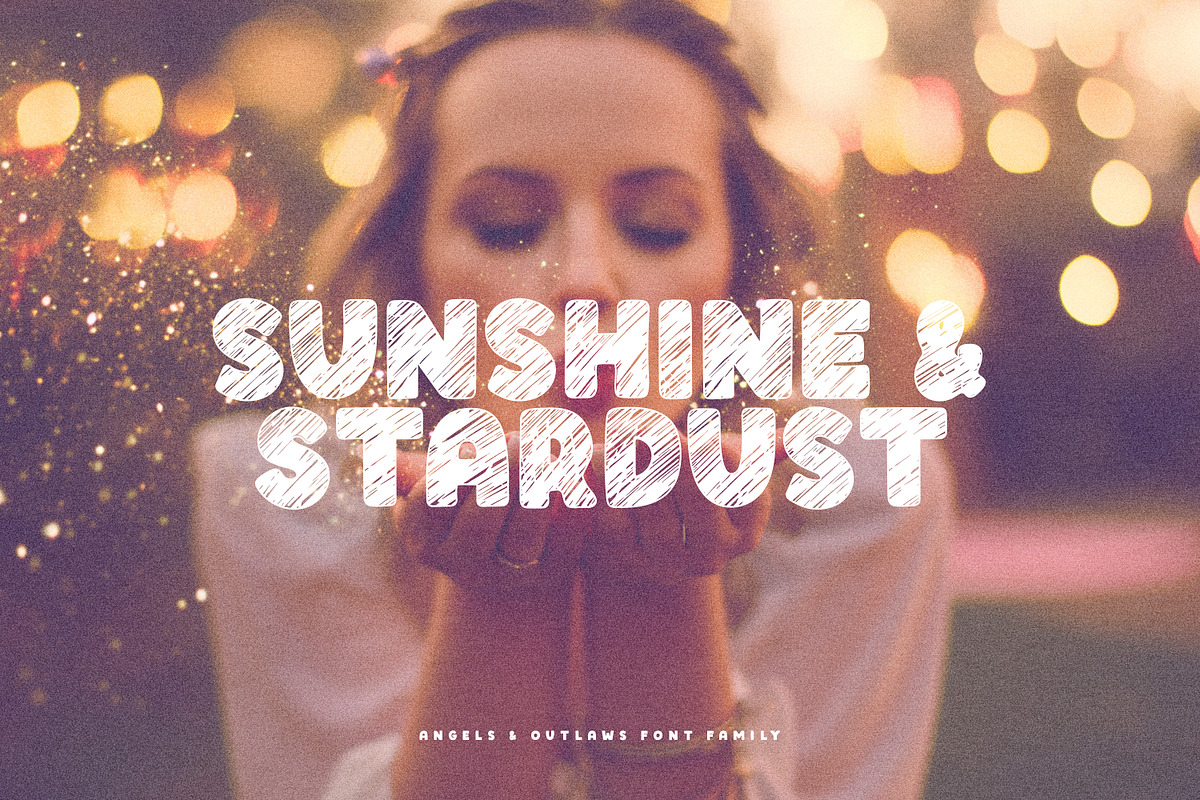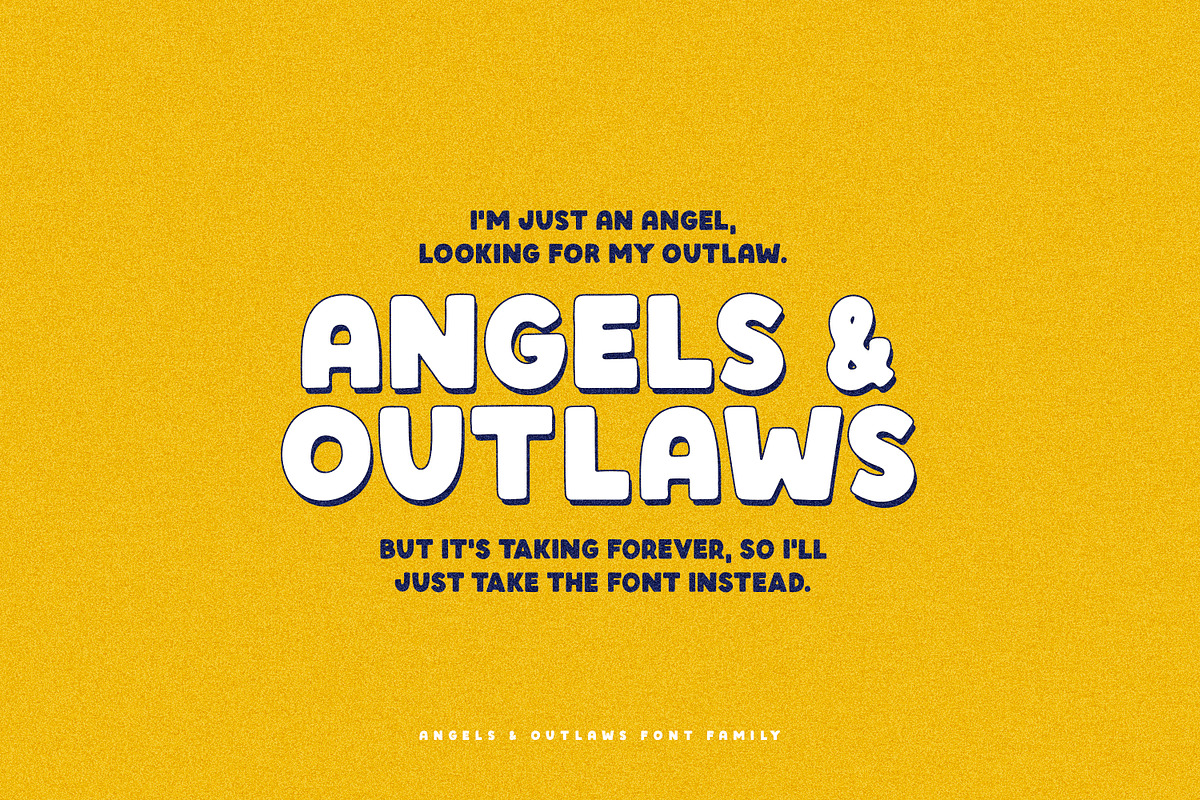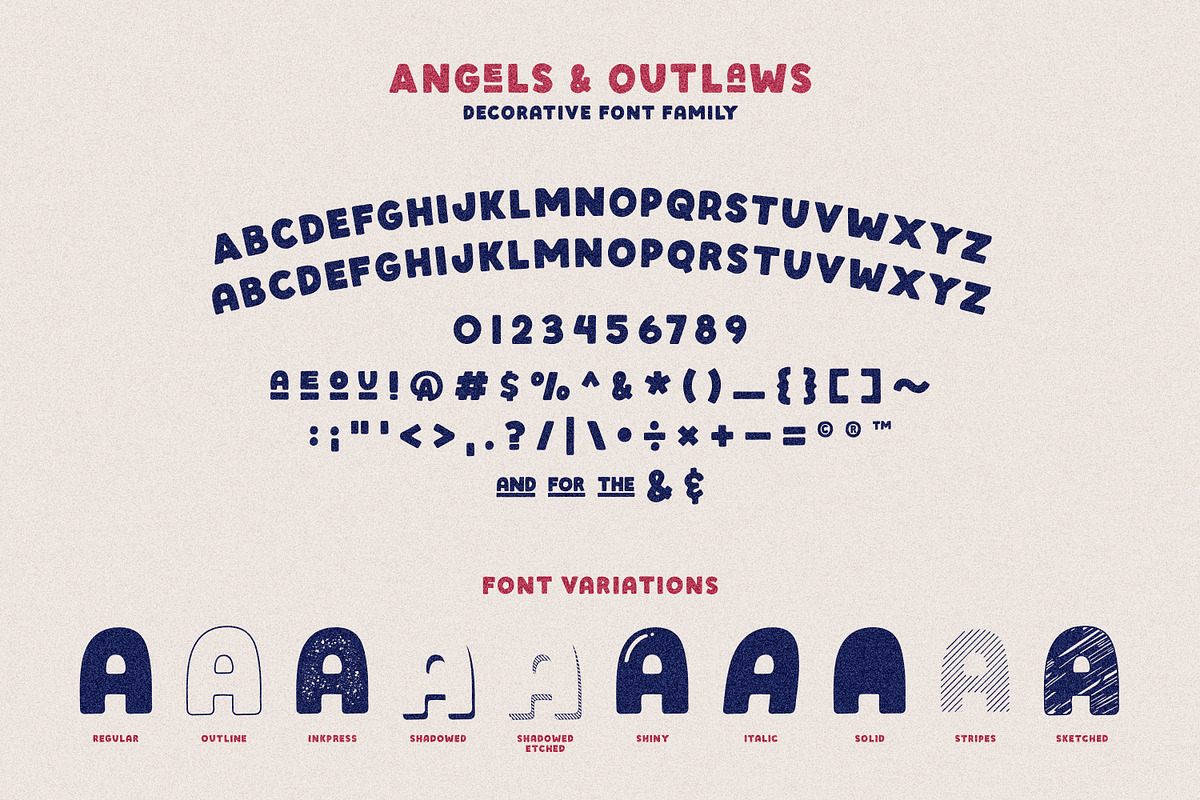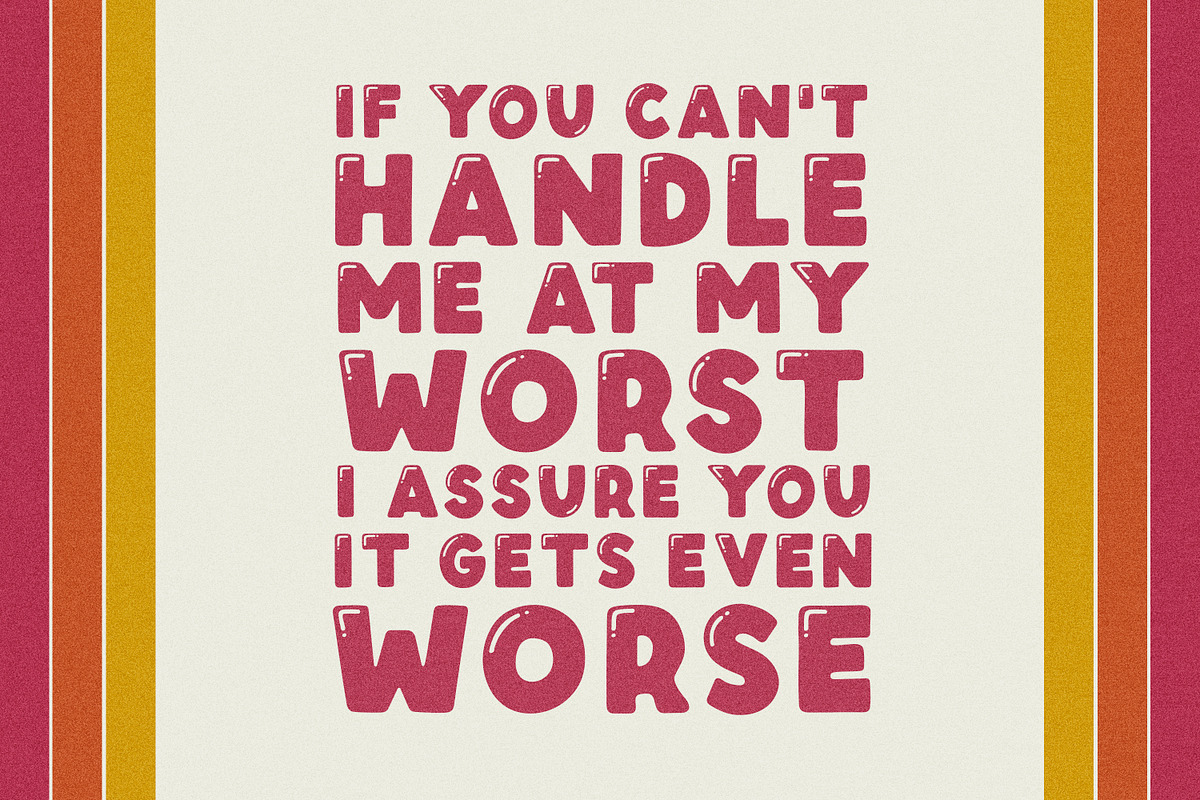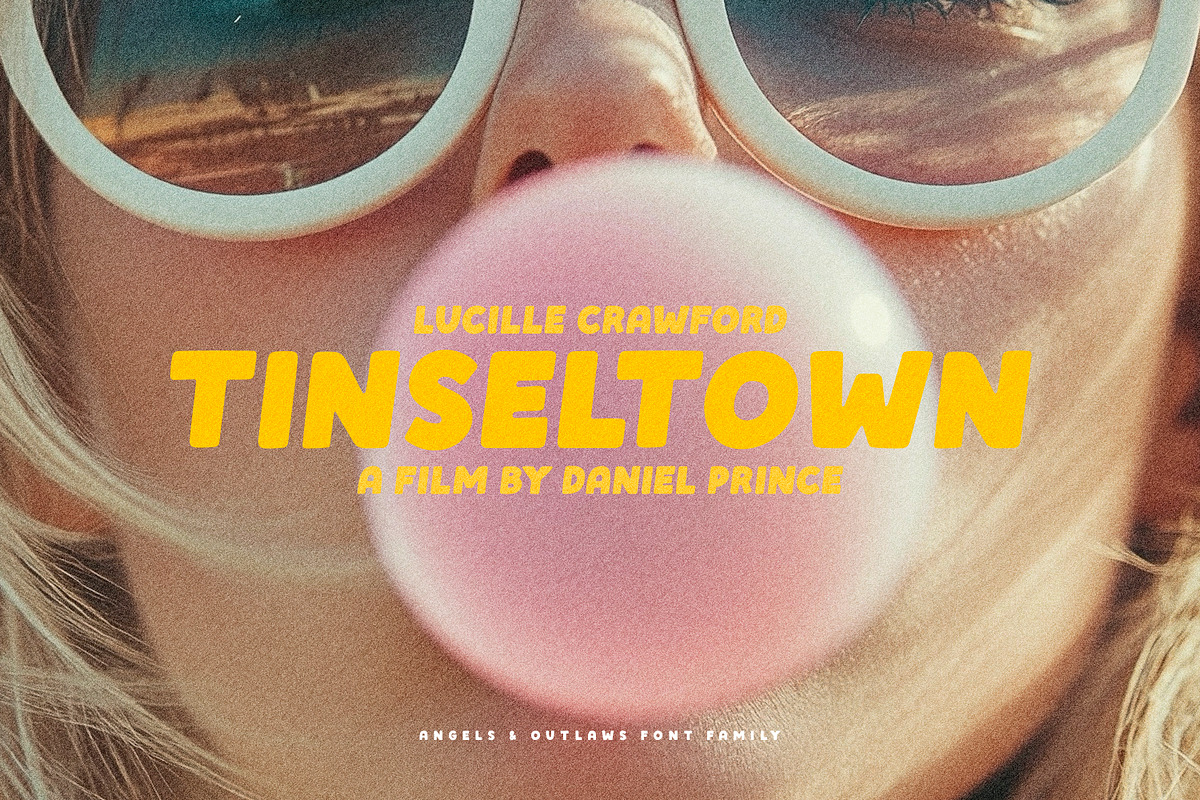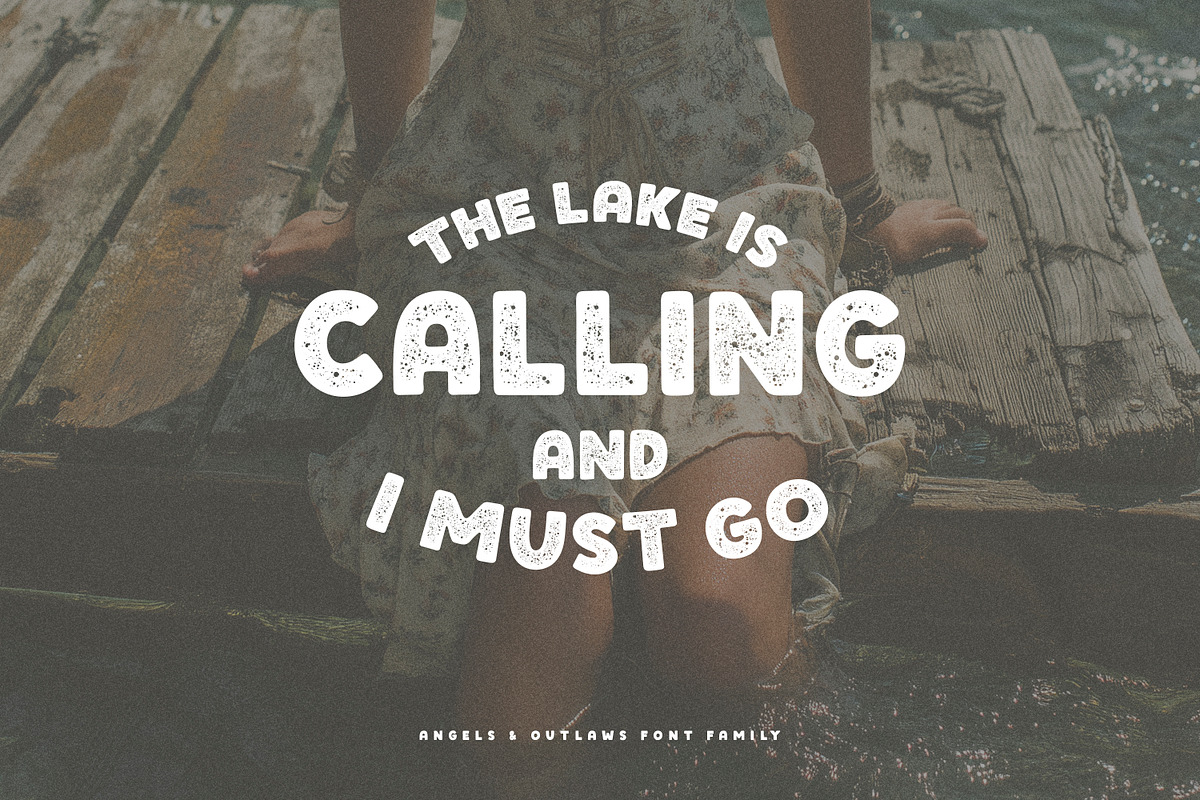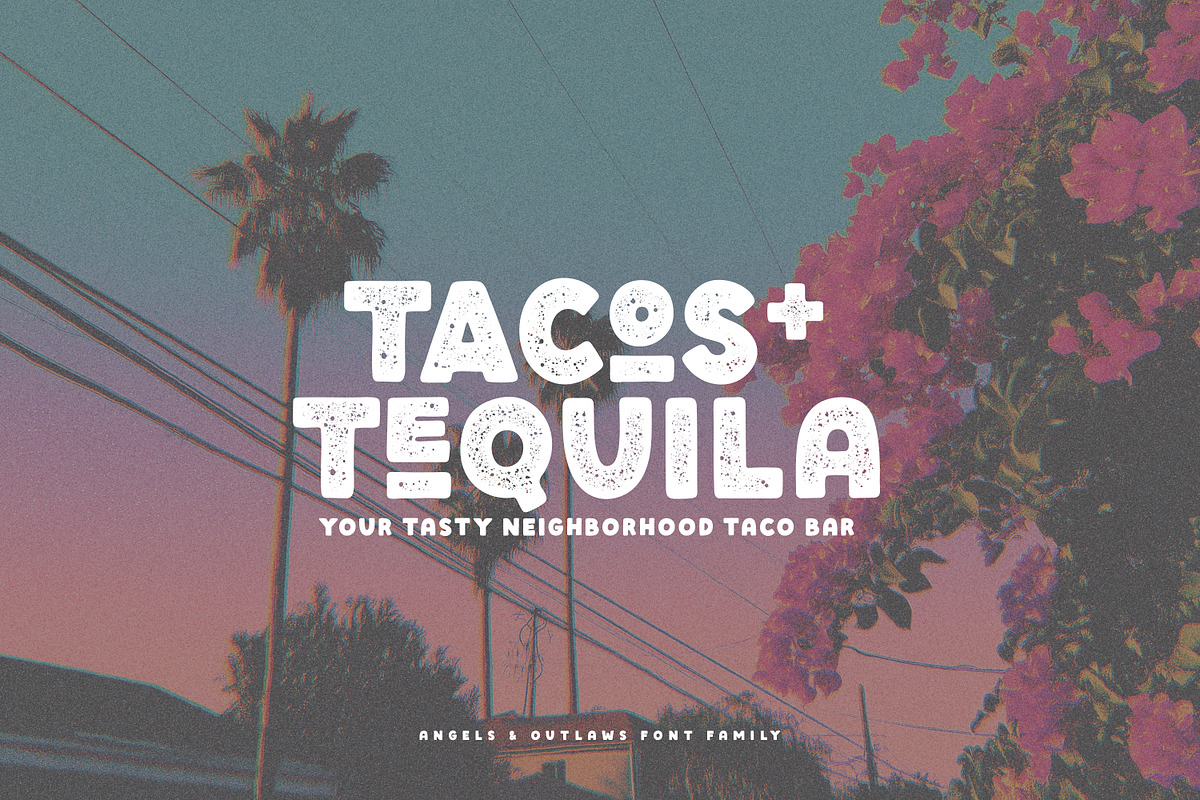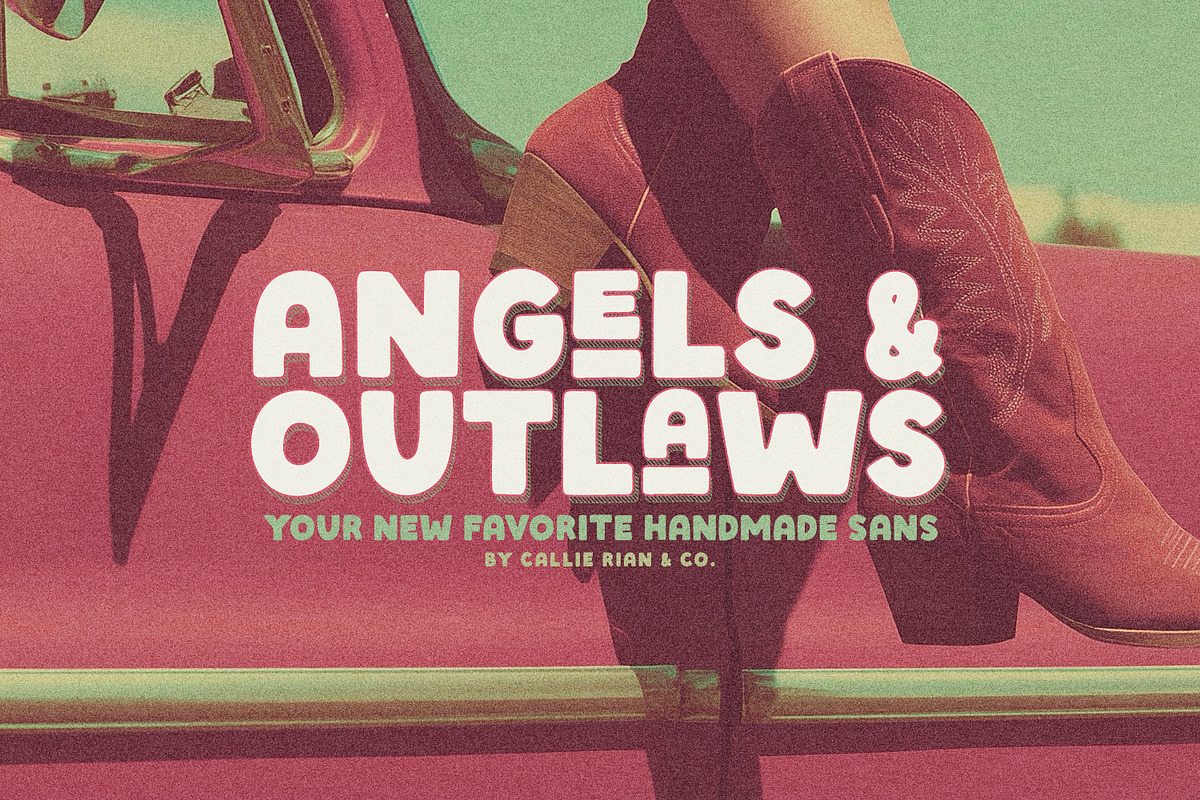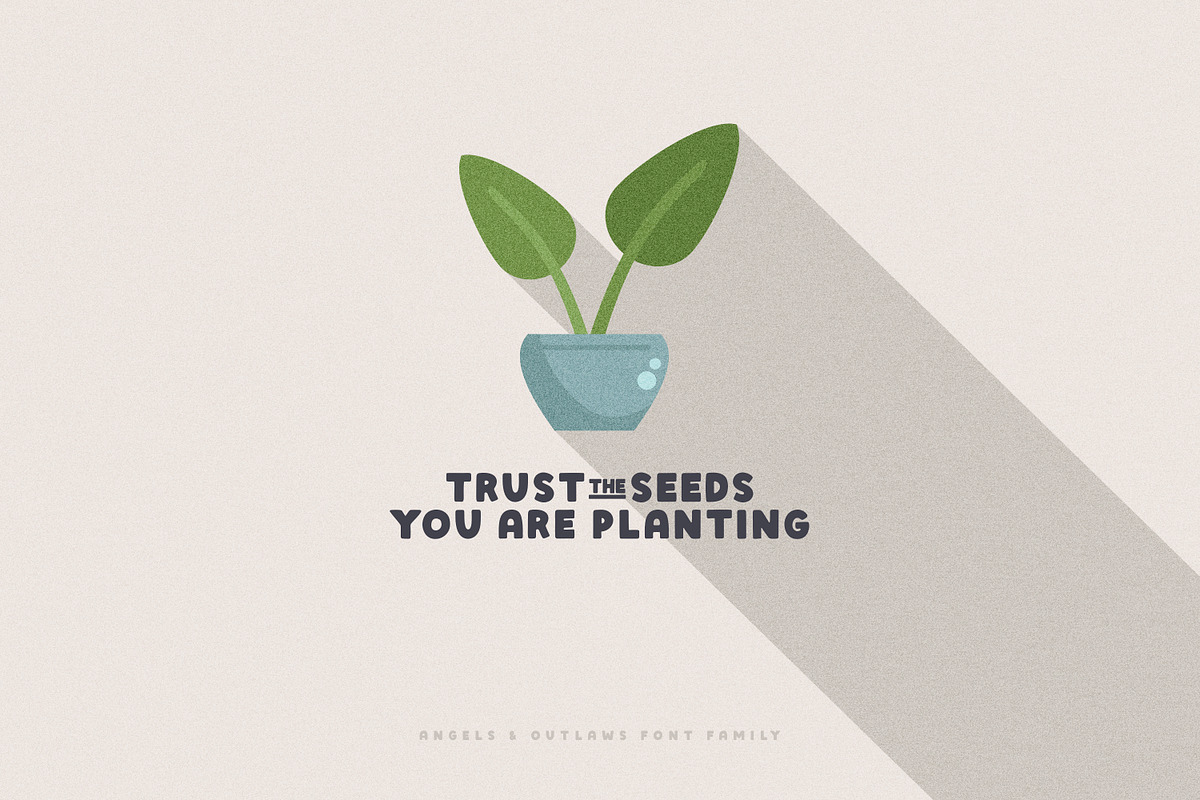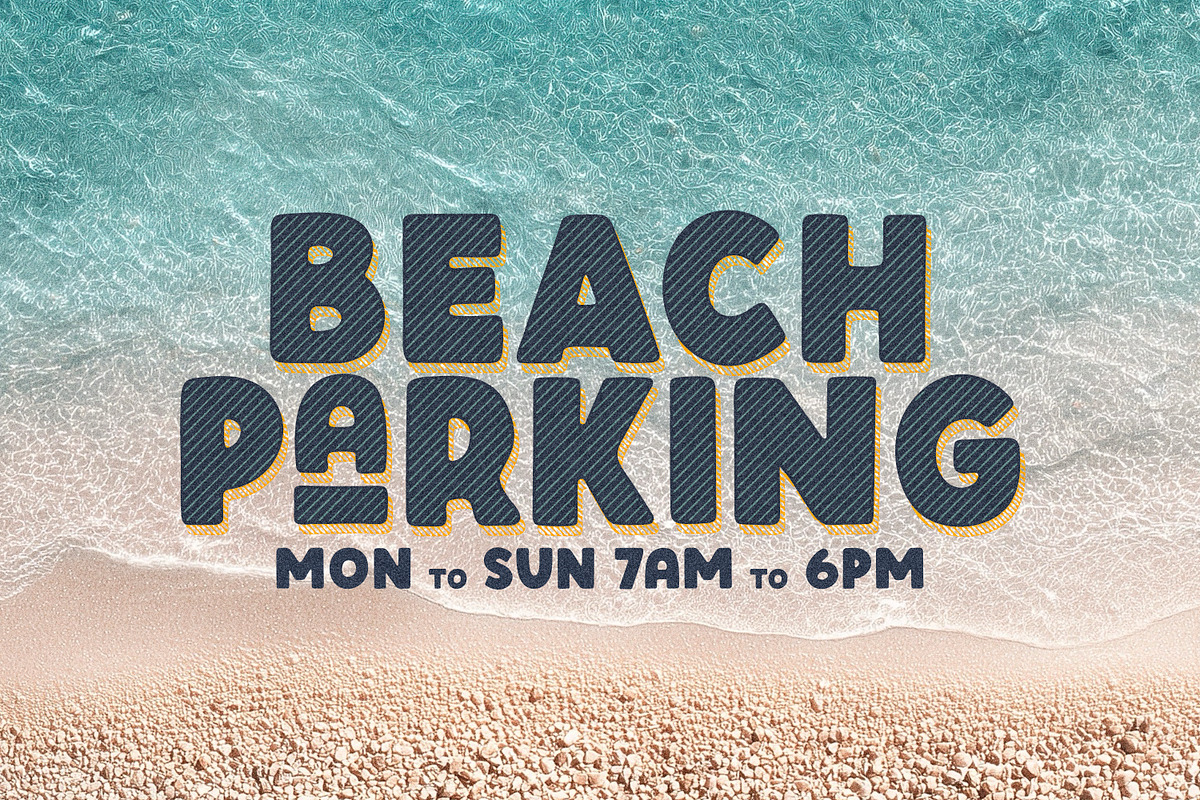
Angels & Outlaws Decorative Fonts
Introducing Angels & Outlaws, a decorative font family with TEN different variations for your creative pleasure. It works beautifully headlines, signage, logos, badges, stickers, quotes, packaging and more!
- English glyphs and bonus alternates.
- All fonts are drawn by hand, so they're a little irregular, but that's the fun.